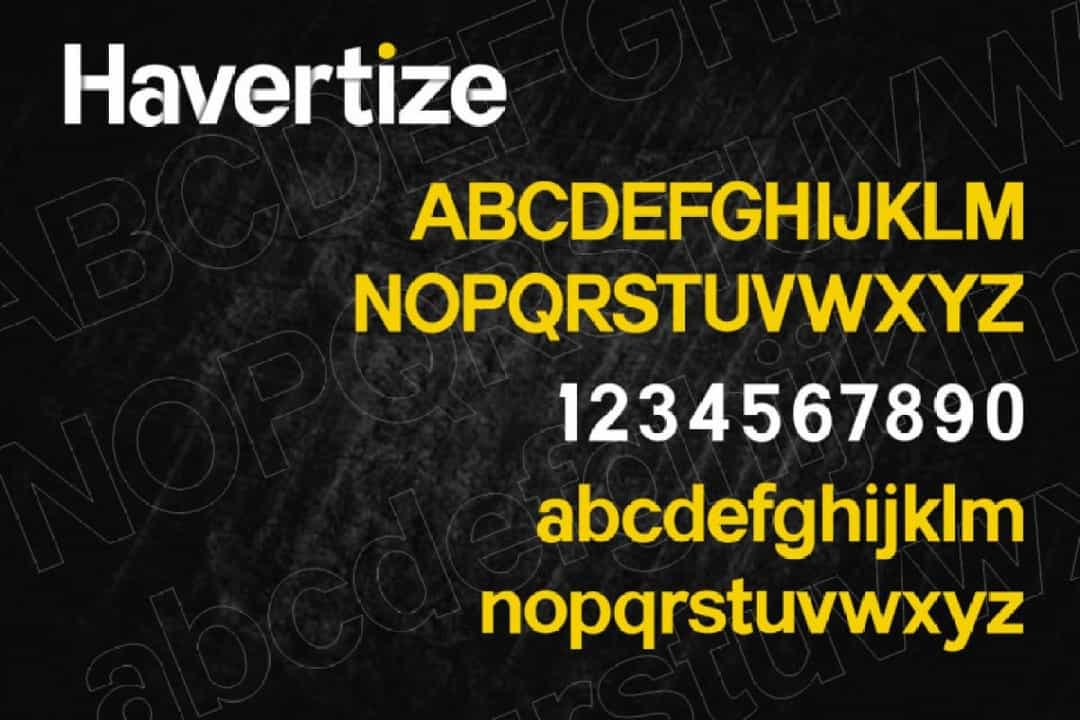
Discover Havertize Bold Sans Serif Font, part of the Sans Serif Basic collection—a versatile and unique font perfect for adding a personal touch to your projects. Download it for free and enjoy crafting designs with style, from invitations to social media posts. This font is available exclusively for personal use, giving you the freedom to create without limits. Unlock your creativity with Havertize Bold Sans Serif Font today!
Havertize is a beautiful and sleek sans serif font that is available in two variants; italic and regular. Havertize can be easily incorporated into various environments or concepts and will surely be unique among the others! Why don’t you try out this lovely font now and see the effect it has?